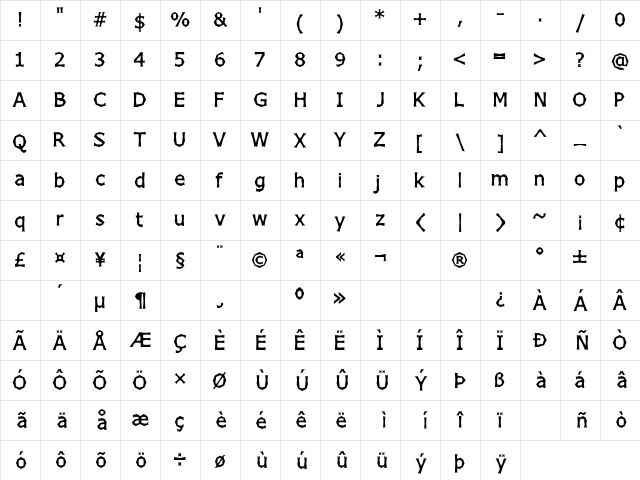
Chizzler SemiBold Regular
Design Context for Chizzler SemiBold Typeface
Chizzler SemiBold offers clean, dependable letterforms without strong stylistic allegiance, making it a practical choice for designers who need flexibility. Its bold stroke weight gives it real presence on the page.